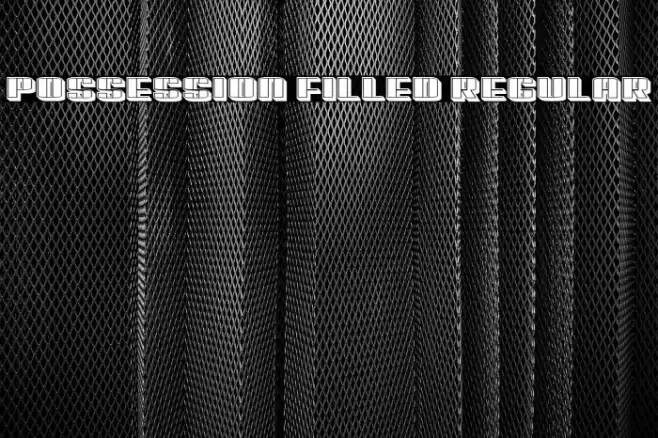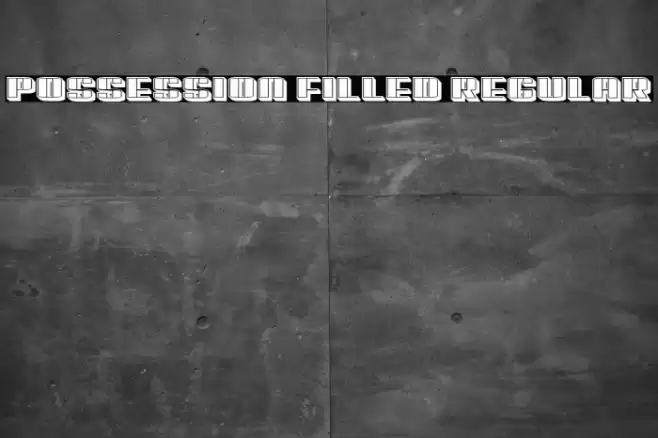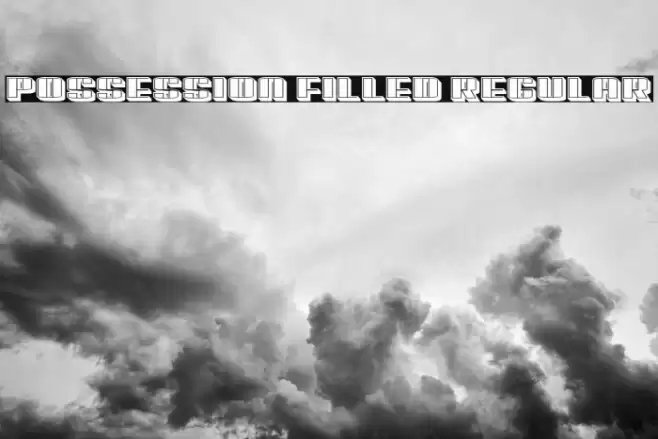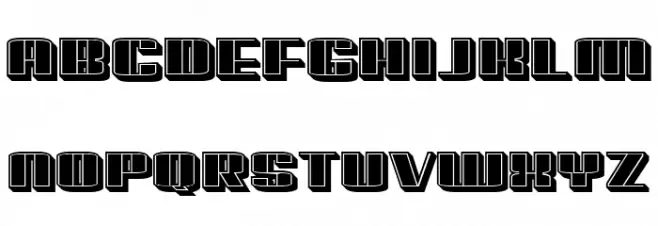
Possession Filled Regular Font
Possession Filled Regular Description
This font features a bold, geometric design with a strong presence. Each character is outlined with a thick border, creating a filled appearance that emphasizes its blocky structure. The uppercase letters are uniform in height, contributing to a cohesive and balanced look. The font's style is reminiscent of industrial or futuristic themes, making it suitable for projects that require a modern and impactful typeface. Its distinct, filled-in appearance ensures high visibility and readability, even from a distance.
A bold, geometric font with a filled, outlined style, ideal for modern and impactful designs from Uncategorized fonts.
- Proposed Projects: This font is perfect for branding, posters, headlines, and any design that requires a strong, modern aesthetic.